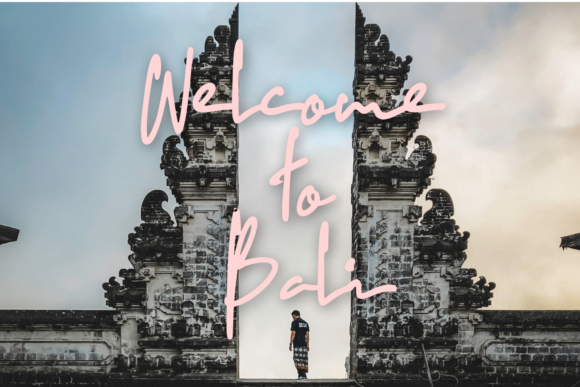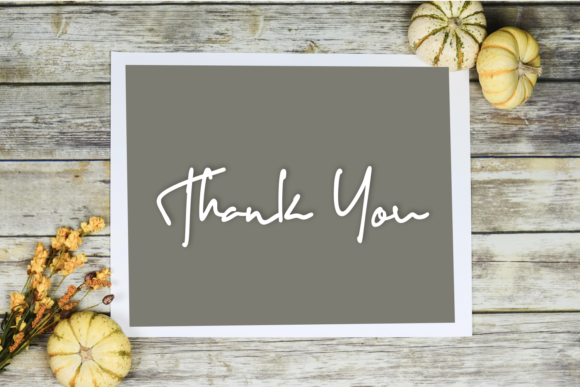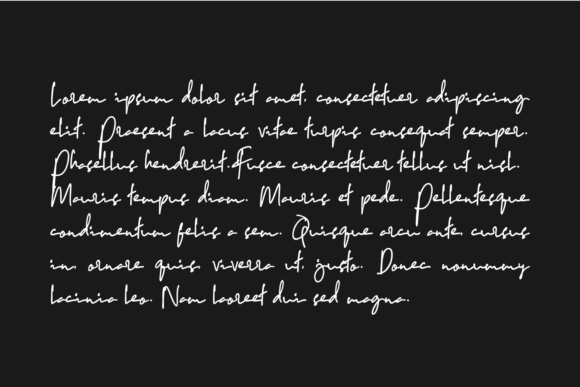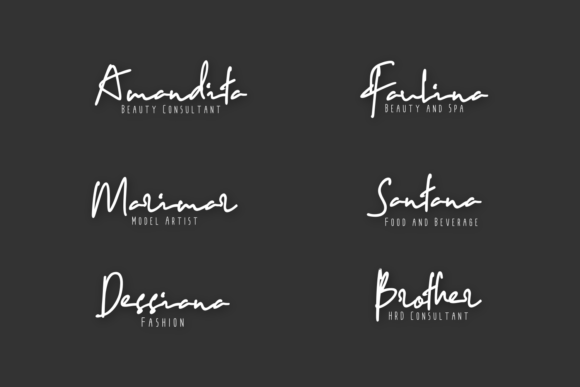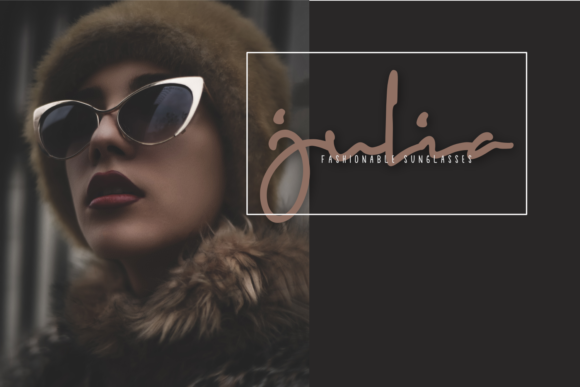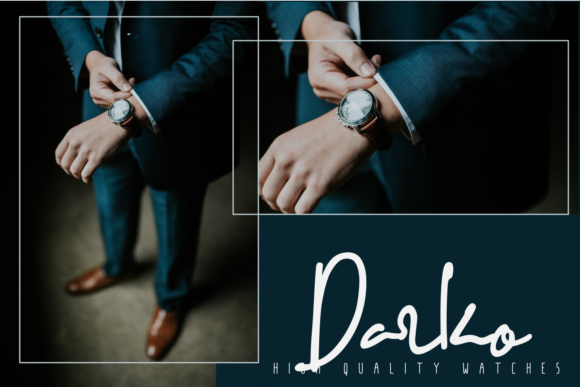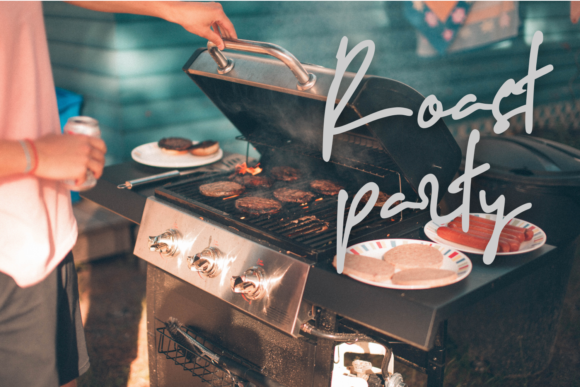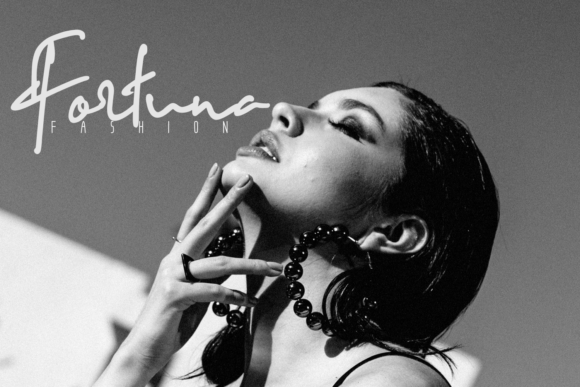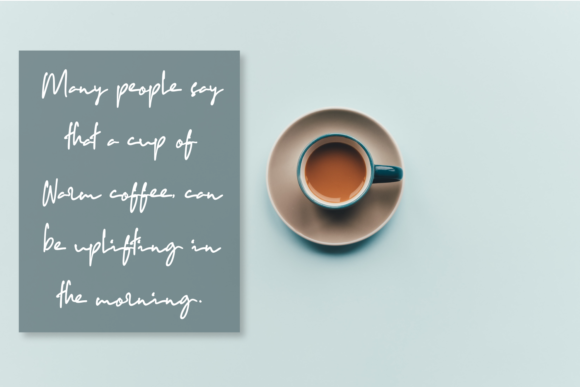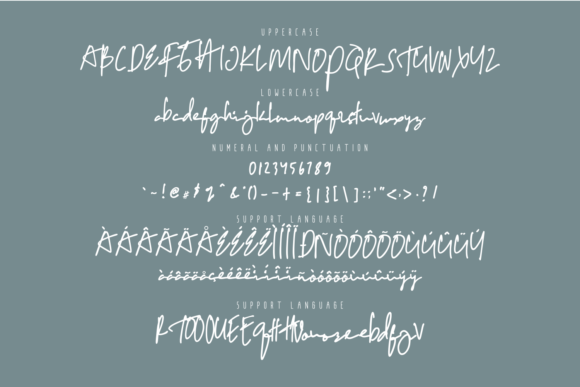
HomeScript FontsCopalanga Font Script Fonts Copalanga Font FacebookXPinterestWhatsApp Copalanga Font Poster 2 Copalanga Font Poster 3 Copalanga Font Poster 4 Copalanga Font Poster 5 Copalanga Font Poster 6 Copalanga Font Poster 7 Copalanga Font Poster 8 Copalanga Font Poster 9 Copalanga Font Poster 10 Copalanga Font Poster 11 About Copalanga Font Copalanga is a light and charming script with a cute feel. Get inspired by its timeless authenticity! DOWNLOAD ON CREATIVE FABRICAThis font is sold and delivered by Creative Fabrica. Font Canyon may earn a commission if you buy through this link. People also explored Sunshine Font Pencilcase Font Blink Magic Unicorn Font Jastine Font Sweater School Donna Font Beltanira Signature Font Rosa Signature Font Left Hand Kid Font 301 0 TagsCopalanga Font Previous articleTwas the Night Before Christmas FontNext articleAngelica Font LEAVE A REPLY Cancel reply Comment: Please enter your comment! Name:* Please enter your name here Email:* You have entered an incorrect email address! Please enter your email address here Website: Save my name, email, and website in this browser for the next time I comment. Personal Use Free Cinderella Personal Use Free Read more about this font Micahel Personal Use Free Read more about this font Comic Caps Personal Use Free Read more about this font Happy Camping Personal Use Free Read more about this font BLOG Using Fonts in Digital Marketing: Tips to Strengthen Your Brand Identity In the realm of digital marketing, every visual element plays a crucial role in shaping a brand's identity, and fonts are no exception. The... Top 7 Google Fonts Alternatives for Faster and Privacy-Friendly Web Design (2025) Top 10 Handwritten Fonts That Elevate Your Designs Elegant Wedding Invitation Fonts – Handwritten & Script Fonts